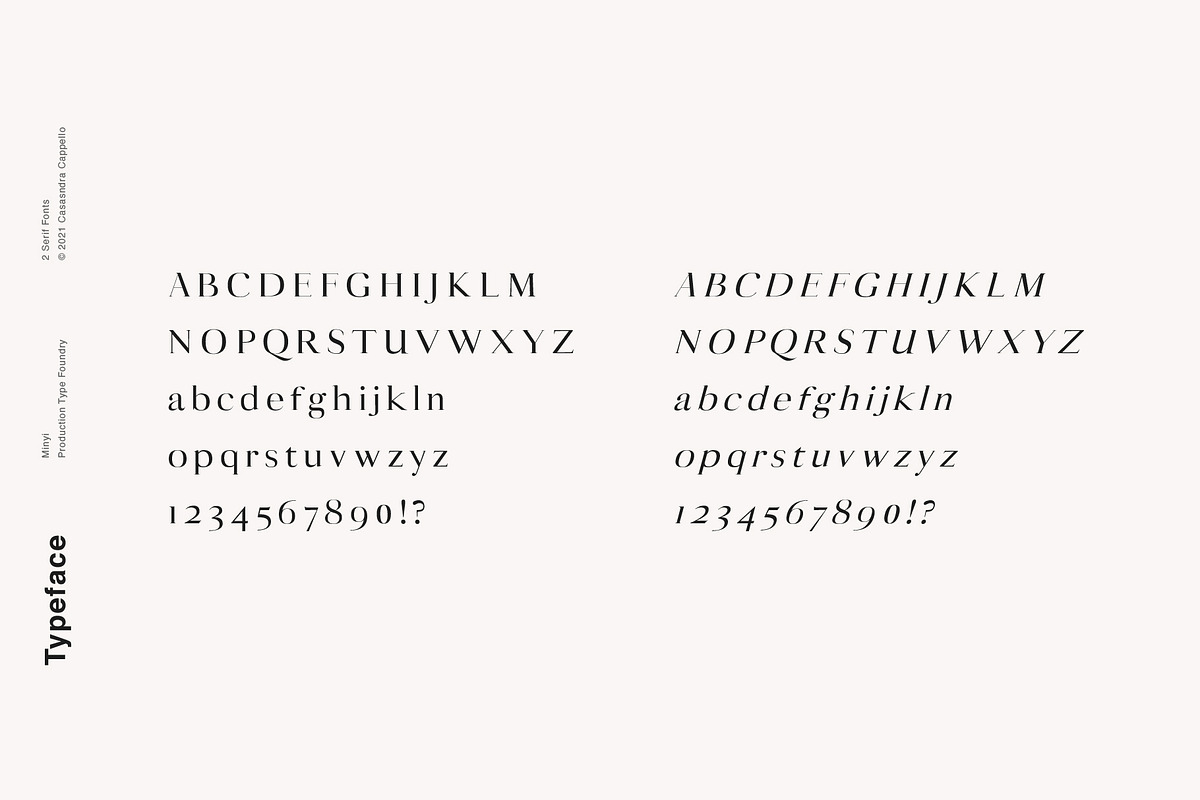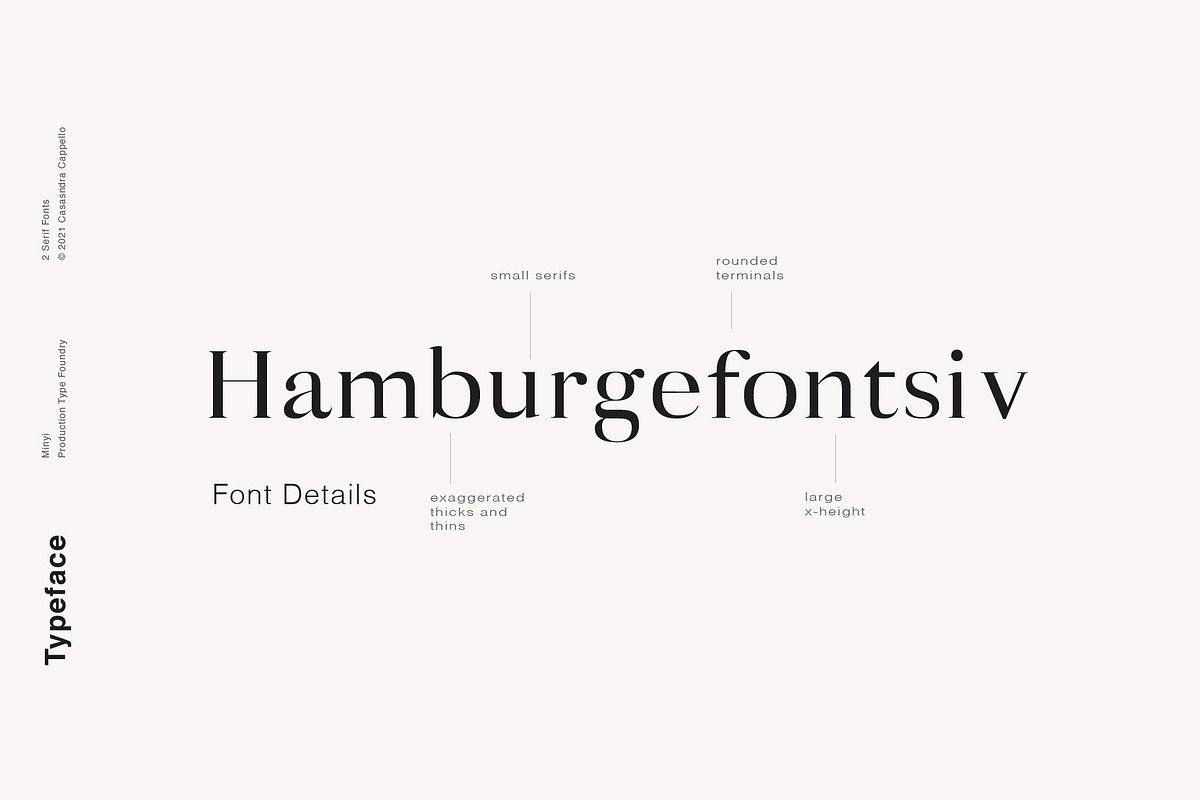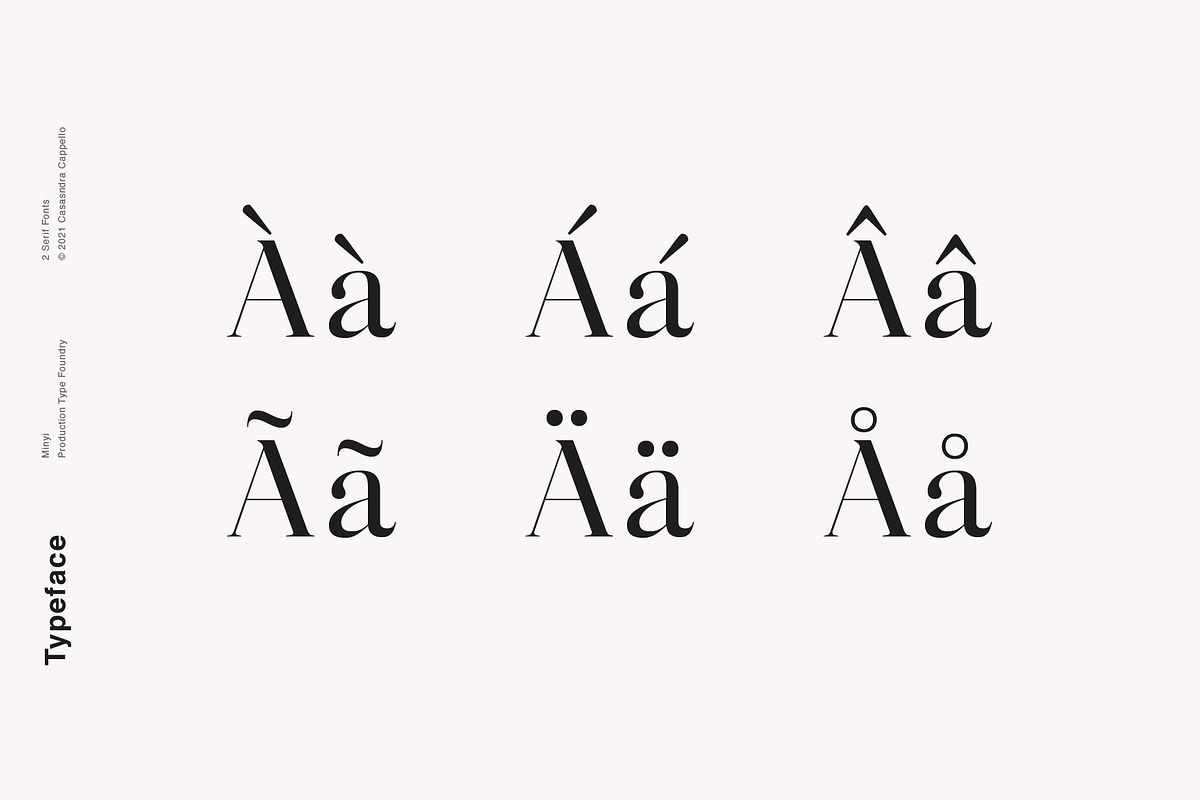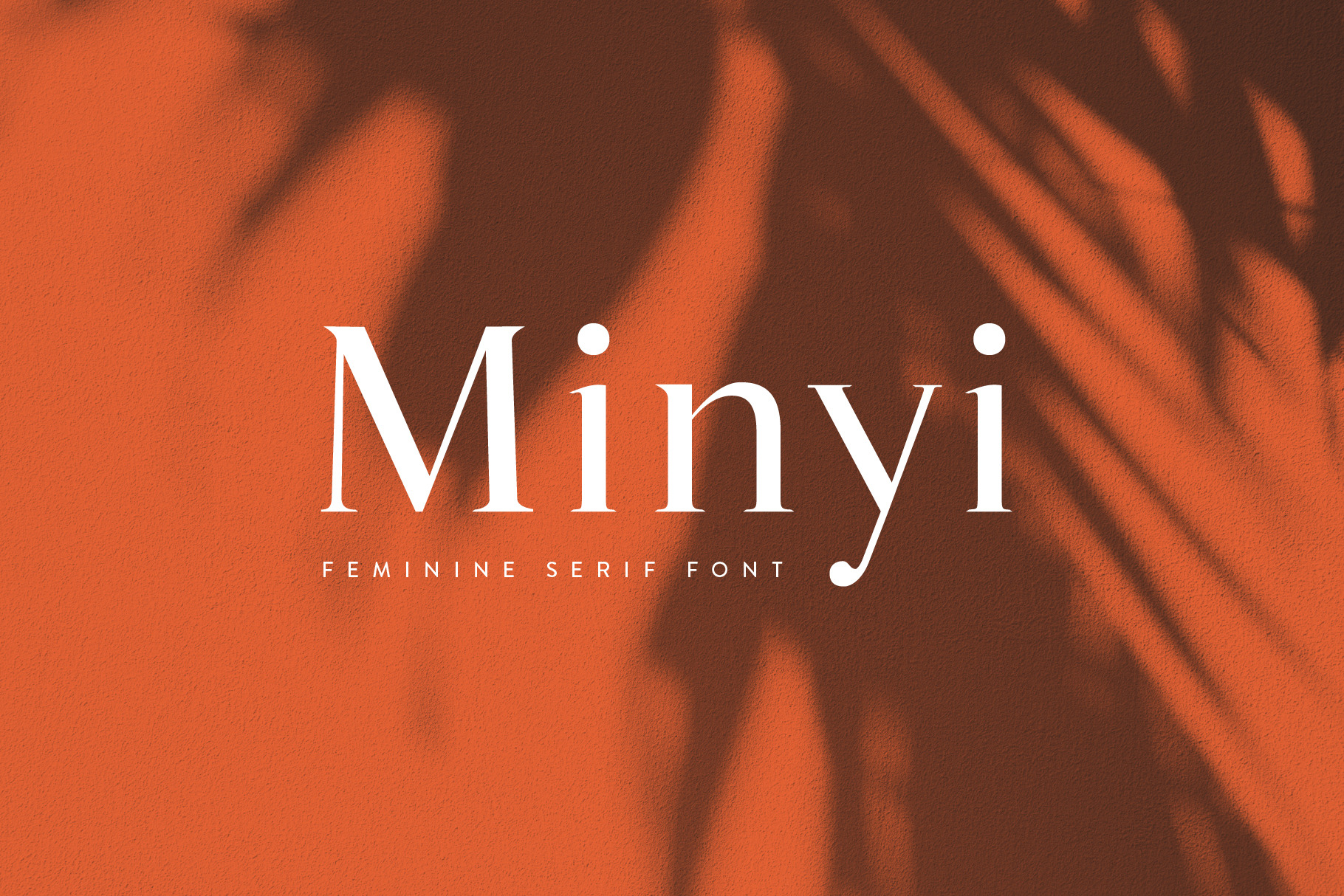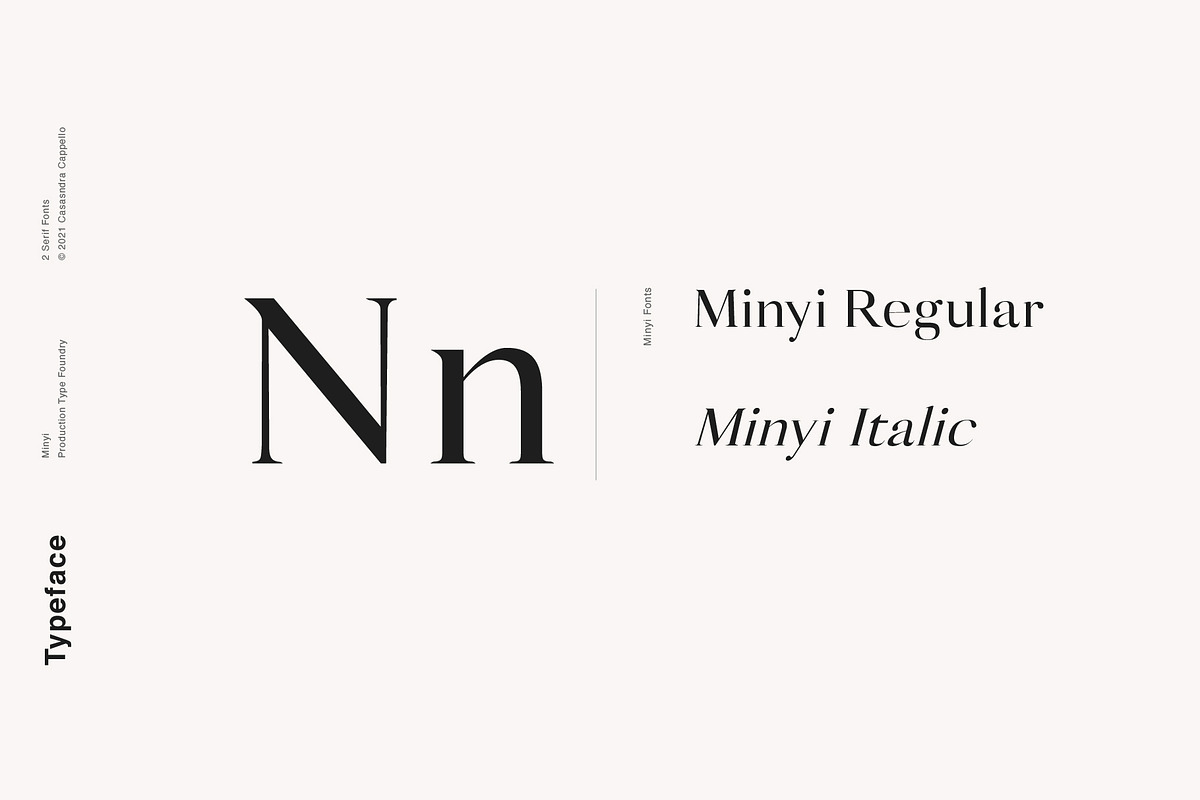
Minyi - A Feminine Serif Typeface
Minyi is a fun, feminine serif typeface filled with personality. This classic font family can be used for both headers and body copy. This font family includes all Latin characters (including accents), numbers, special characters, and punctuation.